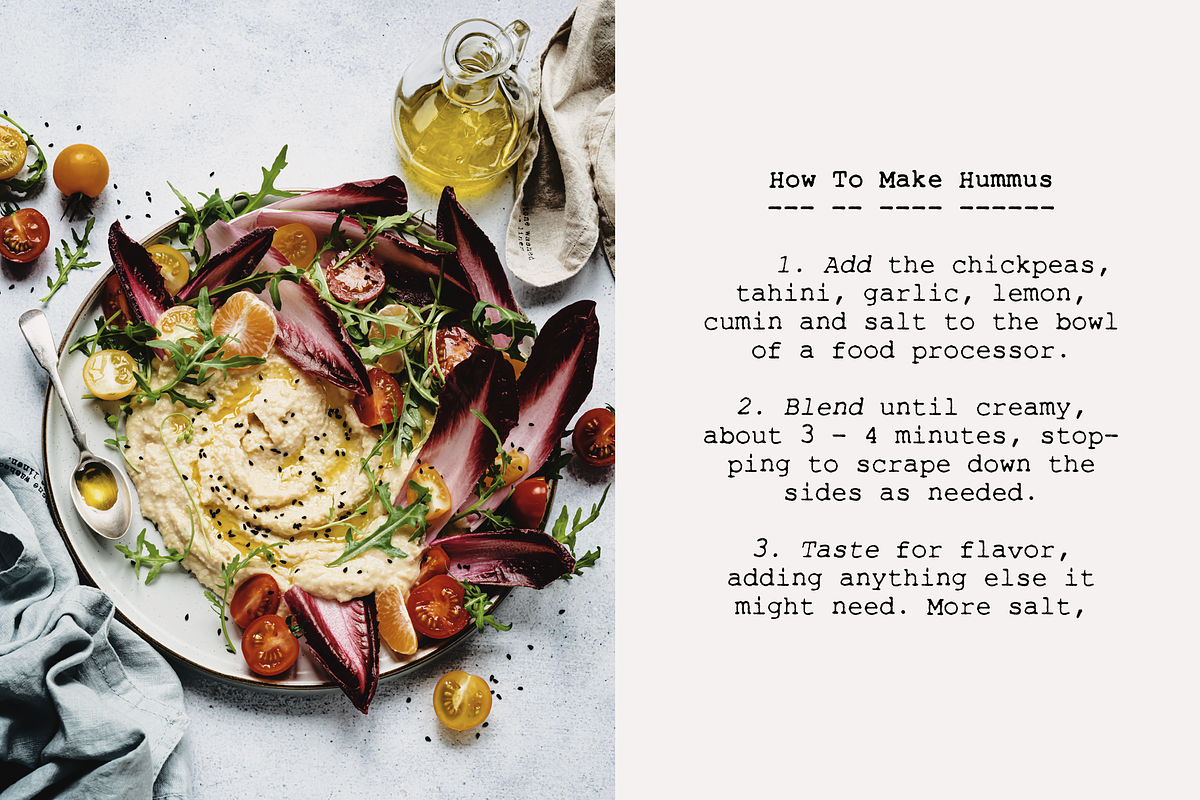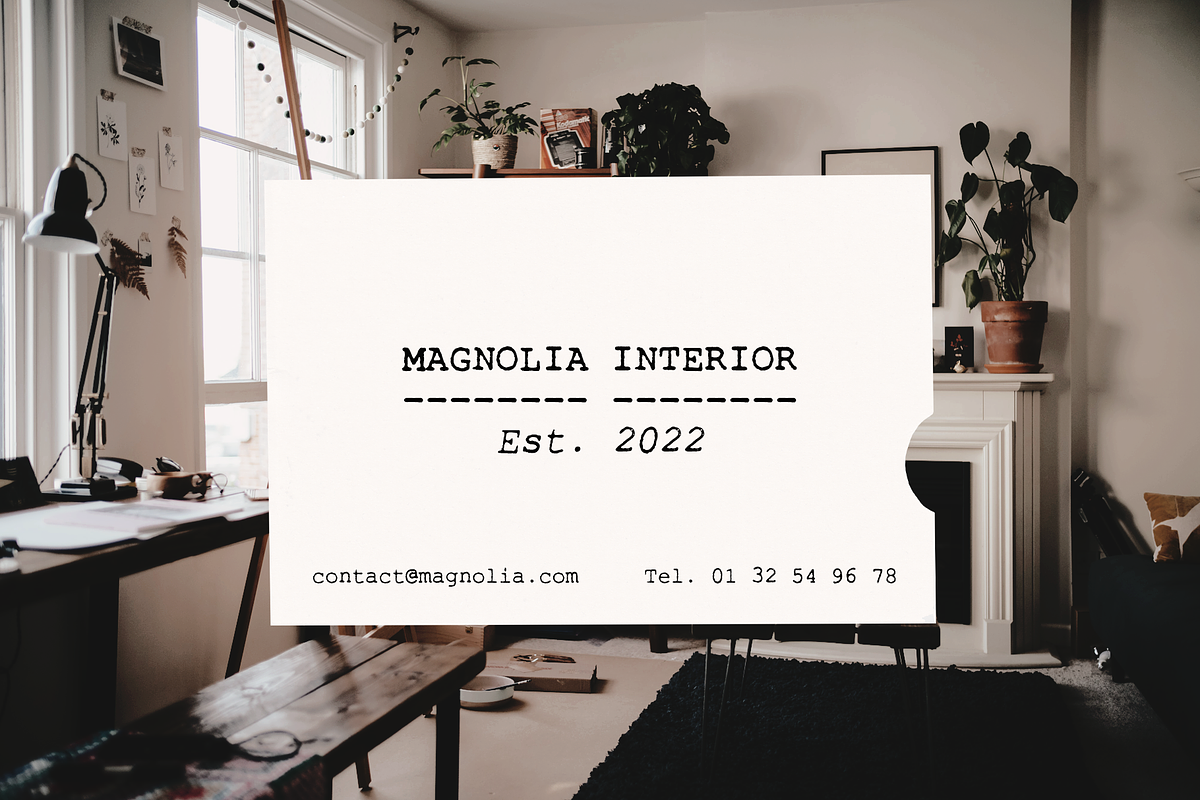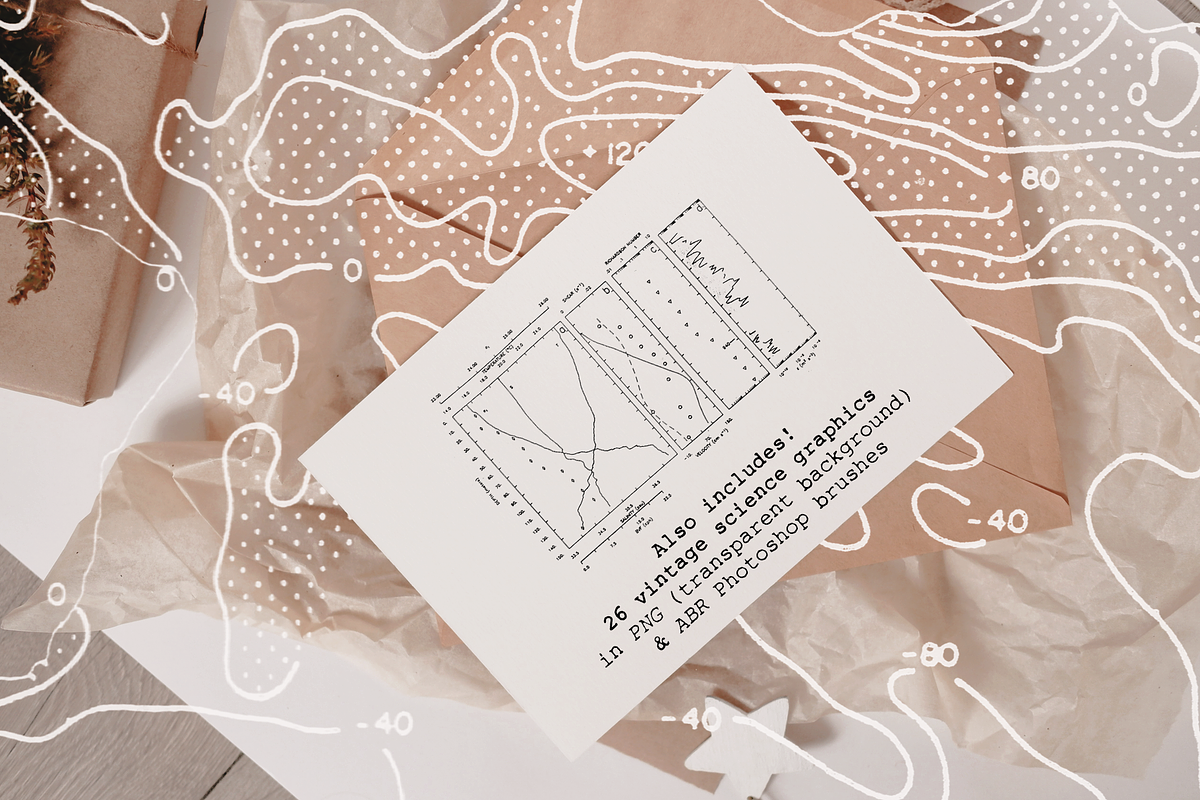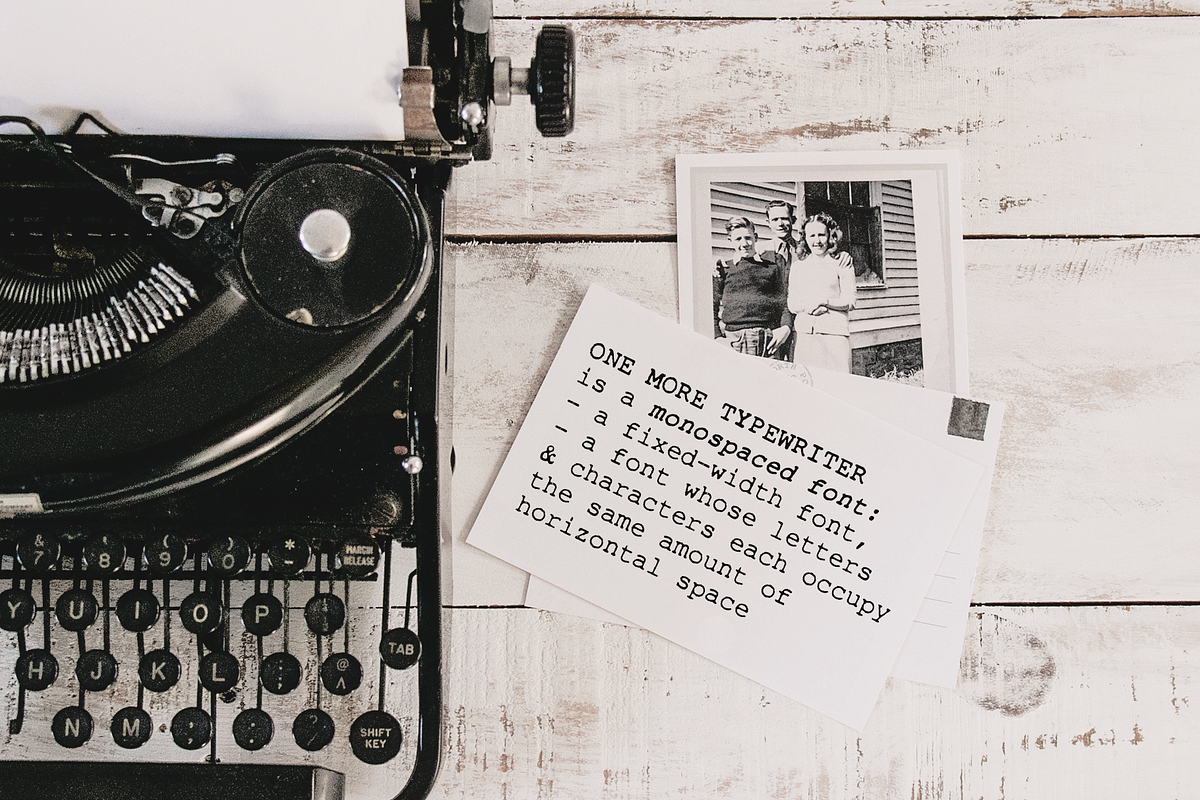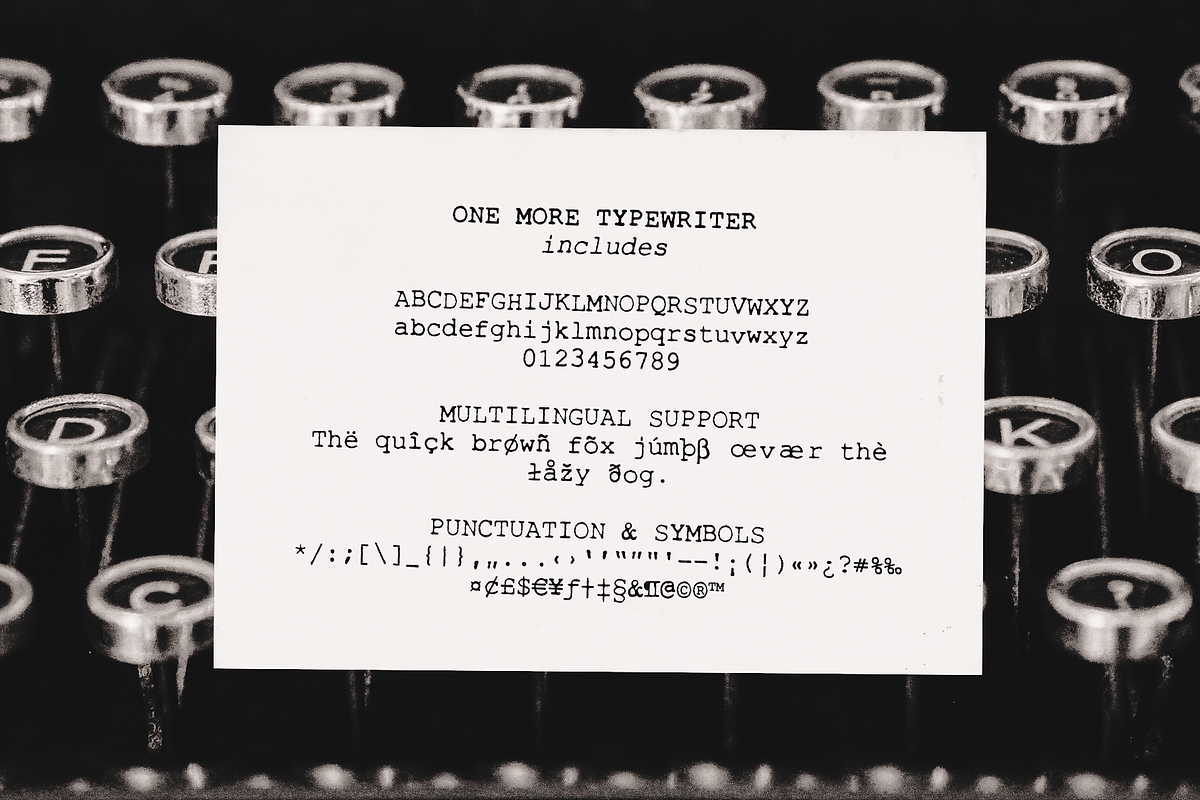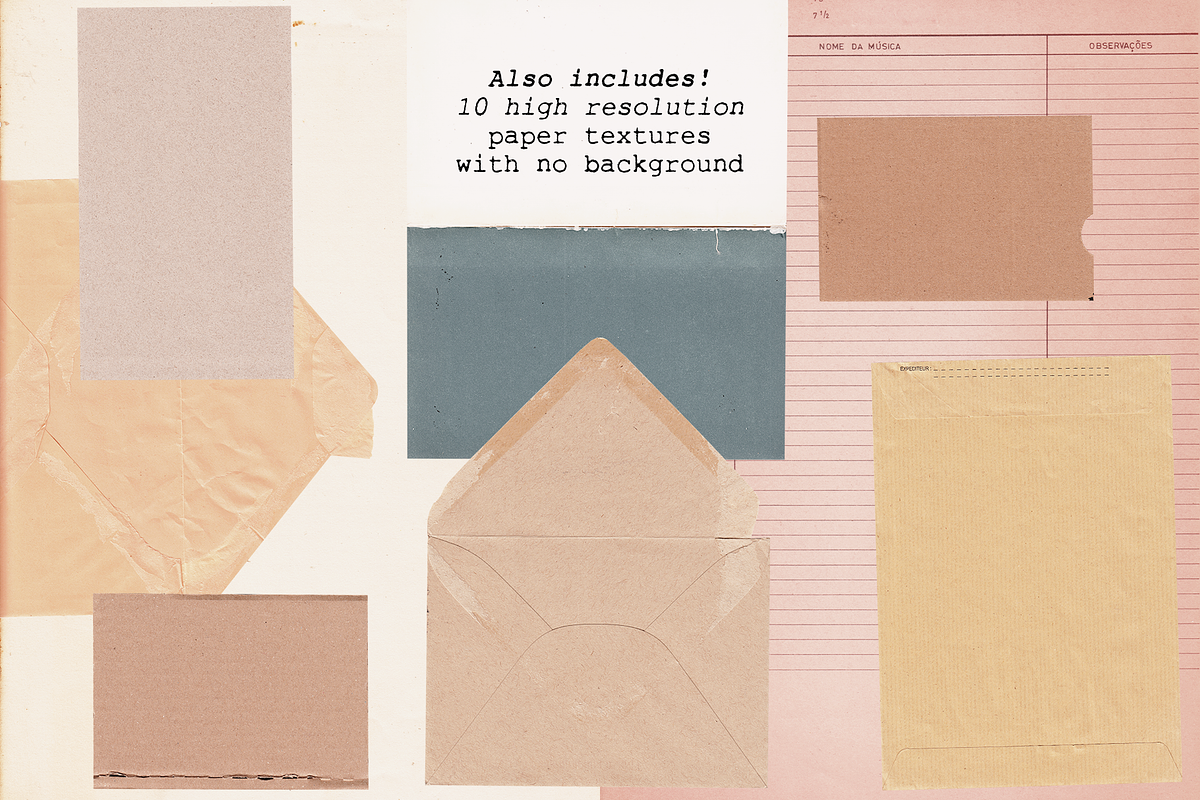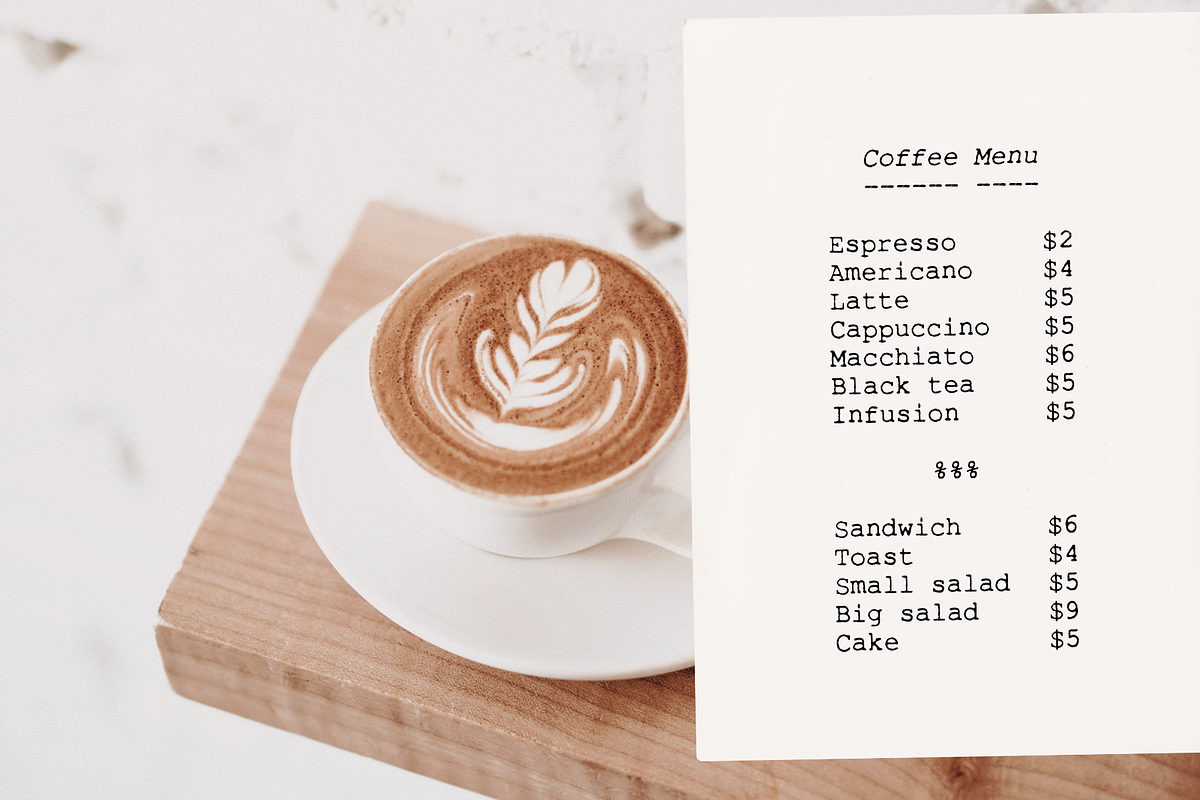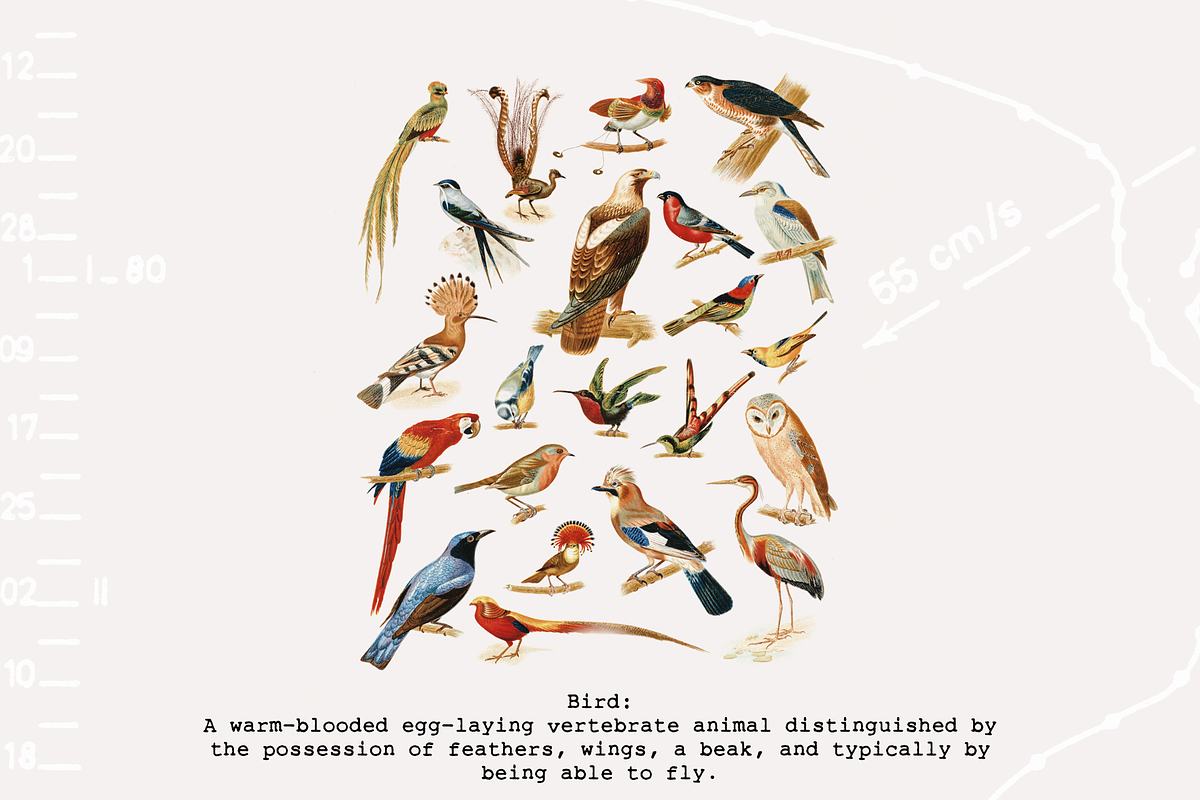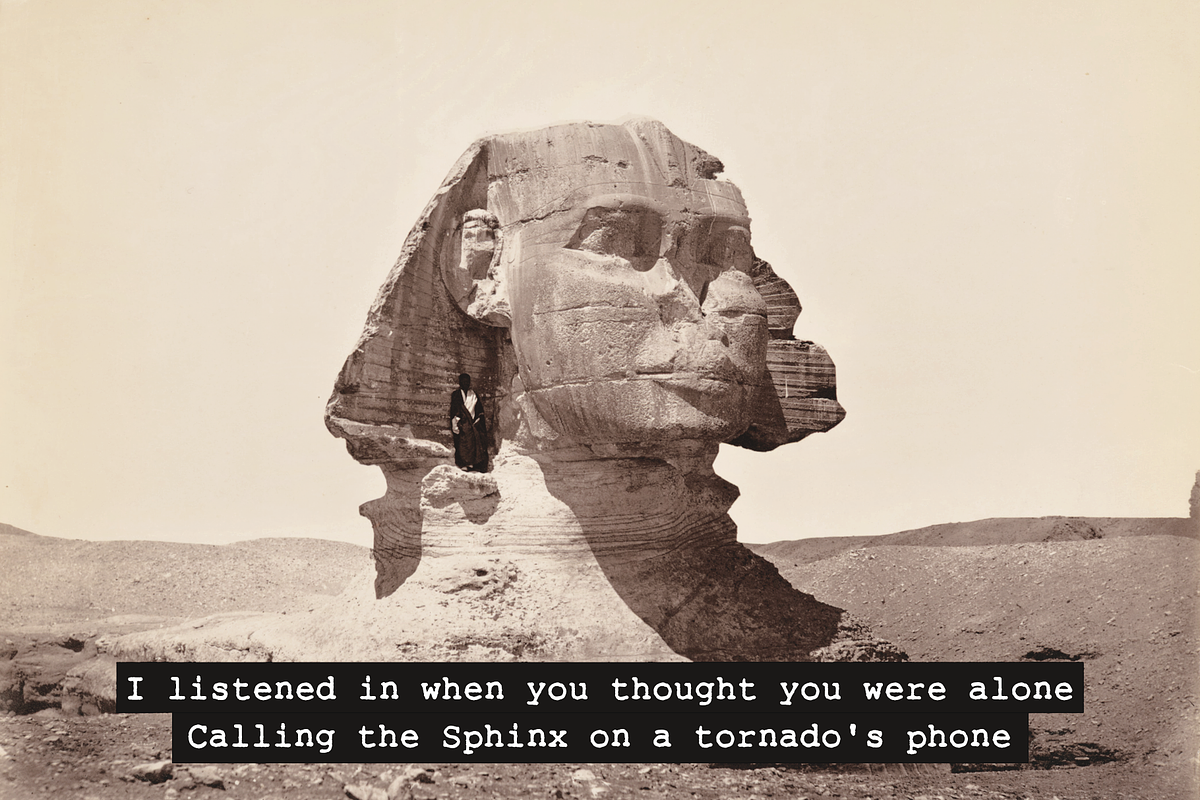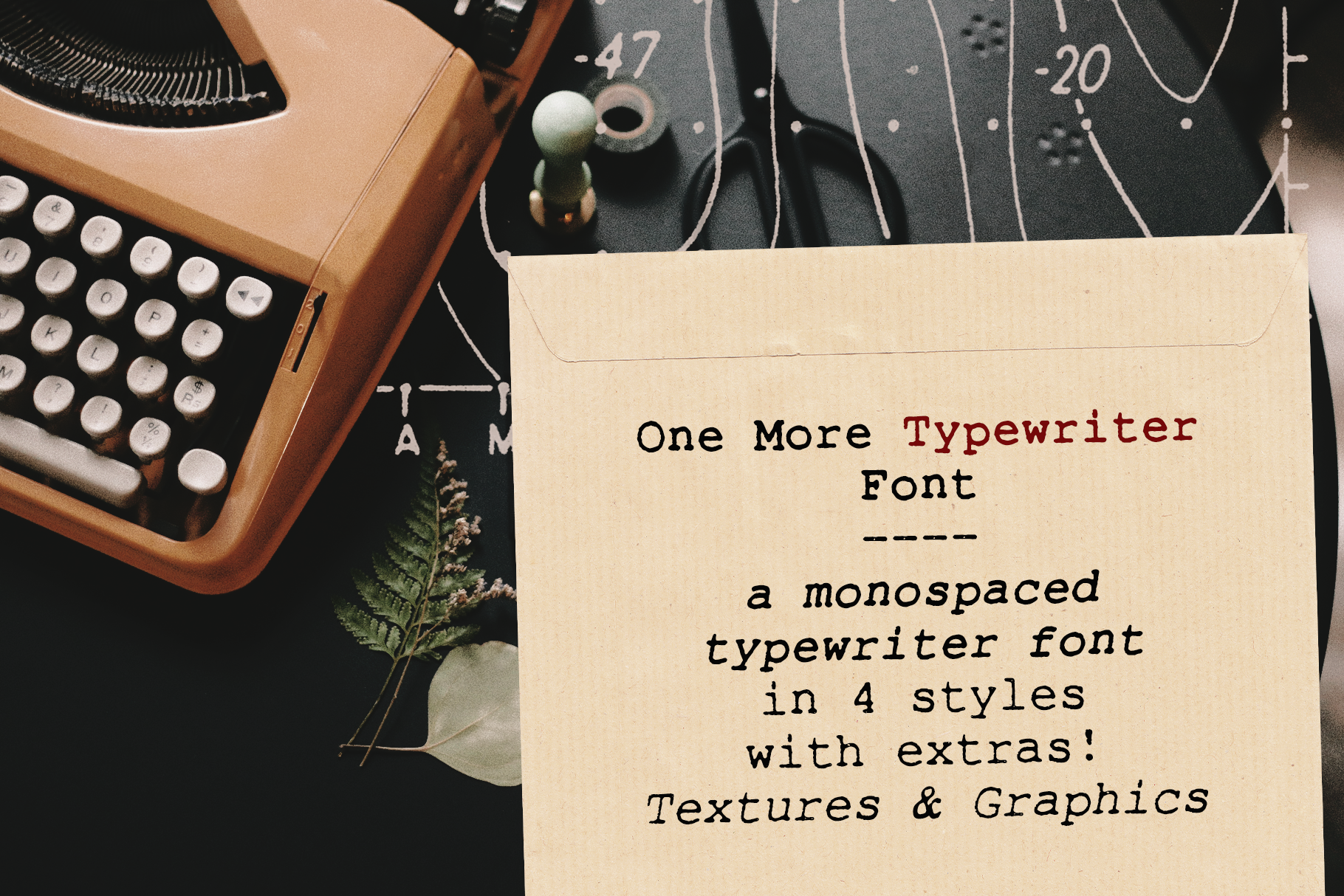
One More Typewriter font
One More Typewriter font is a monospaced typewriter font in two styles: Regular and Italic, and two weights: Regular and Bold. This makes it versatile and ready to use in modern and vintage designs alike. This font is also very legible at a wide range of sizes and looks great in both long or short texts, in digital collages, branding and packaging, social media posts, logotypes, etc.
- One More Typewriter font family with 4 individual fonts: regular, italic, bold and bolid italic, with a soft realistic texture.